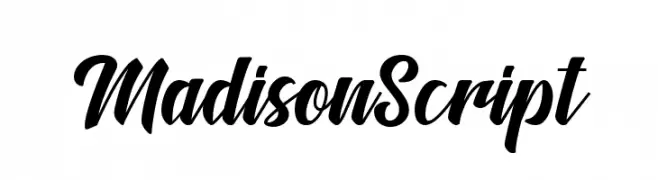
An elegant, expressive script font with fluid, dynamic strokes and artistic flair.
A tall, narrow font with sharp edges and high contrast, perfect for modern designs.
A bold, distressed font with a rugged, hand-drawn appearance.
A bold, gothic-inspired font with sharp, angular edges and a modern twist.
A lively handwritten font with fluid, slightly irregular strokes.
A whimsical script font with flowing, interconnected letterforms and a playful style.
A modern, clean sans-serif font with uniform stroke width and excellent readability.
A flowing, elegant cursive script with bold uppercase and fluid lowercase letters.
A modern, elongated font with a geometric and narrow design.
A lively and elegant script font with fluid, cursive strokes.